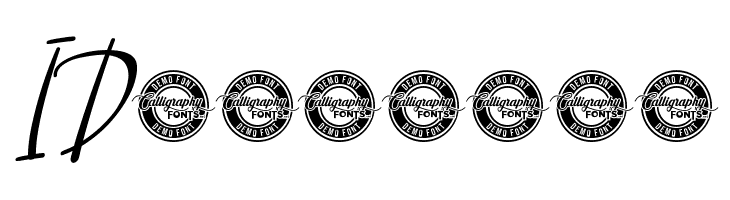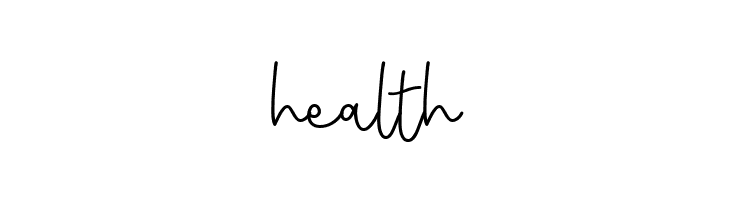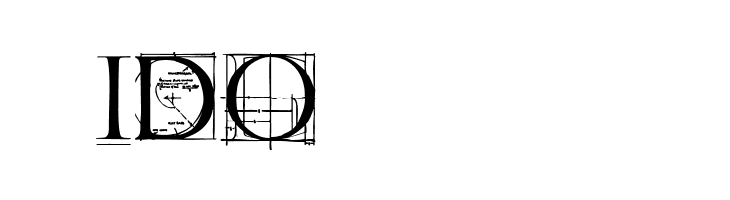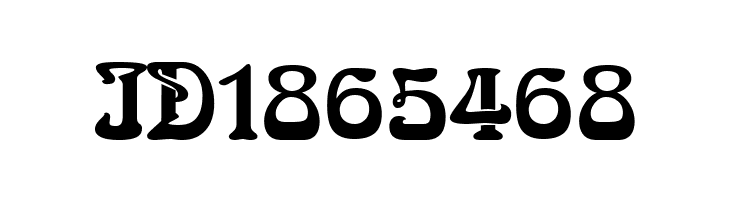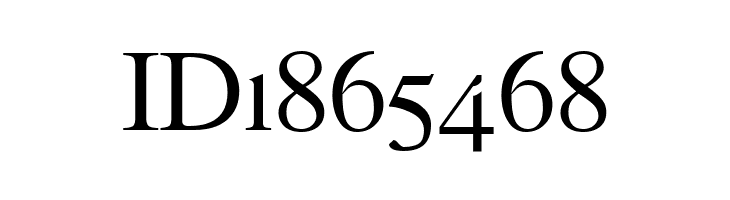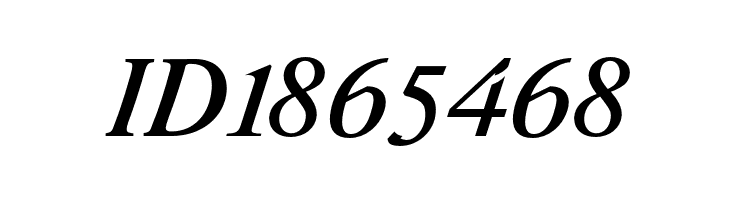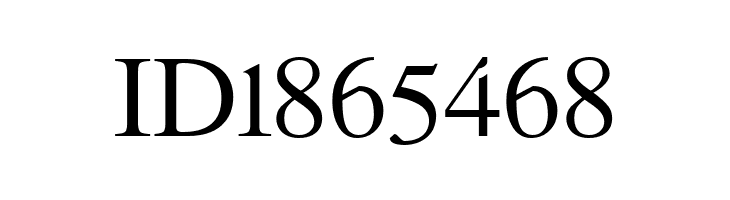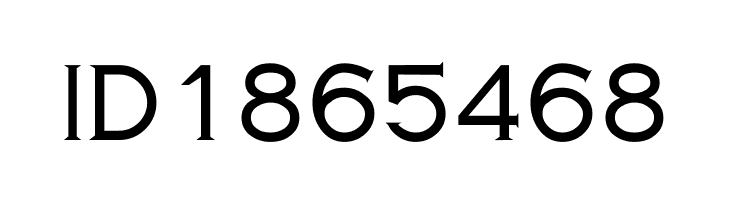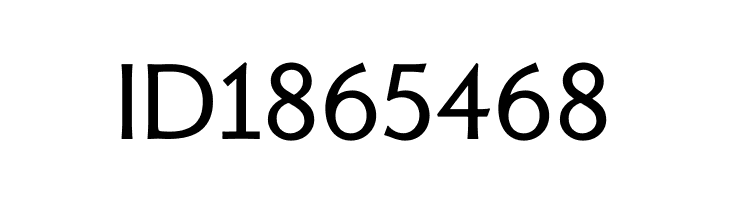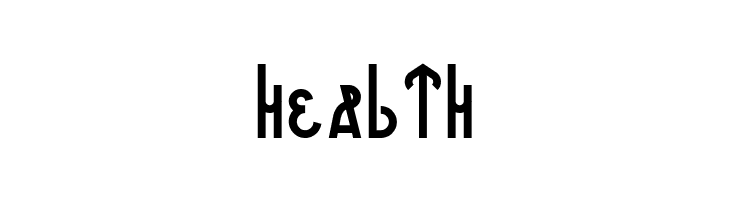
A bold, italic serif font with a classic and elegant style.
A classic serif typeface with elegant, refined strokes and balanced proportions.
A classic serif font with elegant, refined strokes and balanced character design.
A bold, dynamic script font with high contrast and elegant flourishes.
A dynamic script font with elegant calligraphic influences and dramatic flourishes.
A classic serif font with sharp serifs and balanced proportions, ideal for traditional and authoritative designs.
A structured, high-contrast serif font with a classic Roman architectural influence.
A fluid and elegant script font with a dynamic, handwritten style.
A modern sans-serif font with clean lines and balanced proportions.